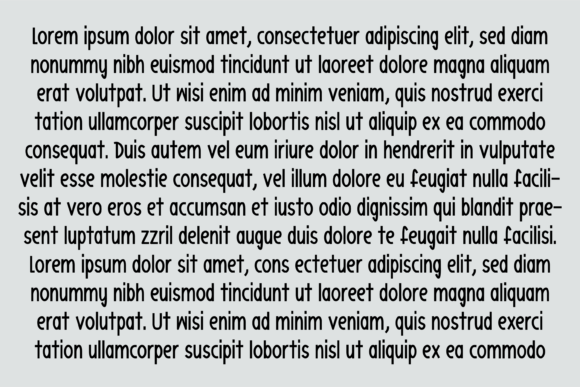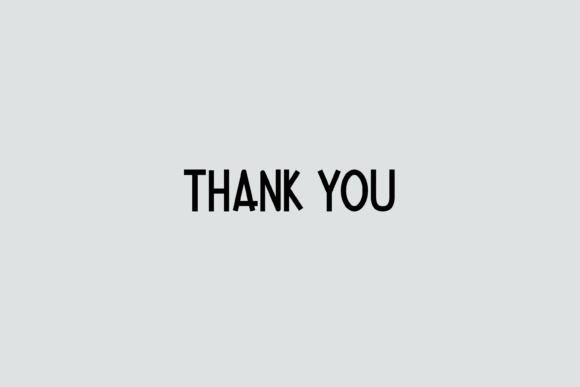
Discover the Charm of Allain Font: A Simple yet Whimsical Handwritten Typeface
In the world of typography, fonts play a crucial role in conveying the tone and personality of a design. Among the numerous fonts available, Allain Font stands out for its simplicity, friendliness, and whimsical charm. This beautiful handwritten font is perfect for designers and crafters looking to add a touch of personality to their projects. In this article, we’ll explore the features and benefits of Allain Font, and how it can elevate your designs to the next level.
What is Allain Font?
Allain Font is a simple and friendly handwritten font that exudes a sense of approachability and warmth. Its whimsical and slightly quirky nature makes it an excellent choice for designs that require a personal touch. Whether you’re working on a logo, wedding invitation, quote, advertisement, or magazine, Allain Font is sure to brighten up your project and leave a lasting impression.
Key Features of Allain Font
- Simple and Friendly: Allain Font boasts a clean and straightforward design that makes it easy to read and understand.
- Whimsical and Quirky: The font’s playful nature adds a touch of personality to your designs, making them more engaging and memorable.
- Handwritten: The font’s handwritten style gives it a personal and human touch, perfect for designs that require a sense of warmth and approachability.
- Versatile: Allain Font is suitable for a wide range of design projects, from logos and wedding invitations to quotes, advertisements, and more.
Benefits of Using Allain Font
So, why should you choose Allain Font for your design projects? Here are just a few benefits of using this beautiful typeface:
- Easily Readable: Allain Font is designed to be easy to read, making it perfect for body text, headings, and titles.
- Unique and Memorable: The font’s whimsical nature makes it stand out from more traditional fonts, ensuring your designs will be remembered.
- Time-Saving: With Allain Font, you can create stunning designs quickly and efficiently, thanks to its clean and straightforward design.
- Customizable: As a digital font, Allain Font can be easily customized to fit your design needs, from adjusting font sizes to experimenting with different colors.
Allain Font is an excellent choice for designers and crafters looking to add a personal touch to their projects. Whether you’re working on:
- Logos: Create a unique and memorable logo that reflects your brand’s personality.
- Wedding Invitations: Add a touch of whimsy and romance to your wedding invitations.
- Quotes: Make your quotes stand out with a beautiful and eye-catching font.
- Advertisements: Grab attention with a bold and playful font that’s sure to leave a lasting impression.
- Magazines and Print: Use Allain Font to add a touch of personality to your magazine or print project.
| Font Name | Allain Font |
| Author | Woracado |